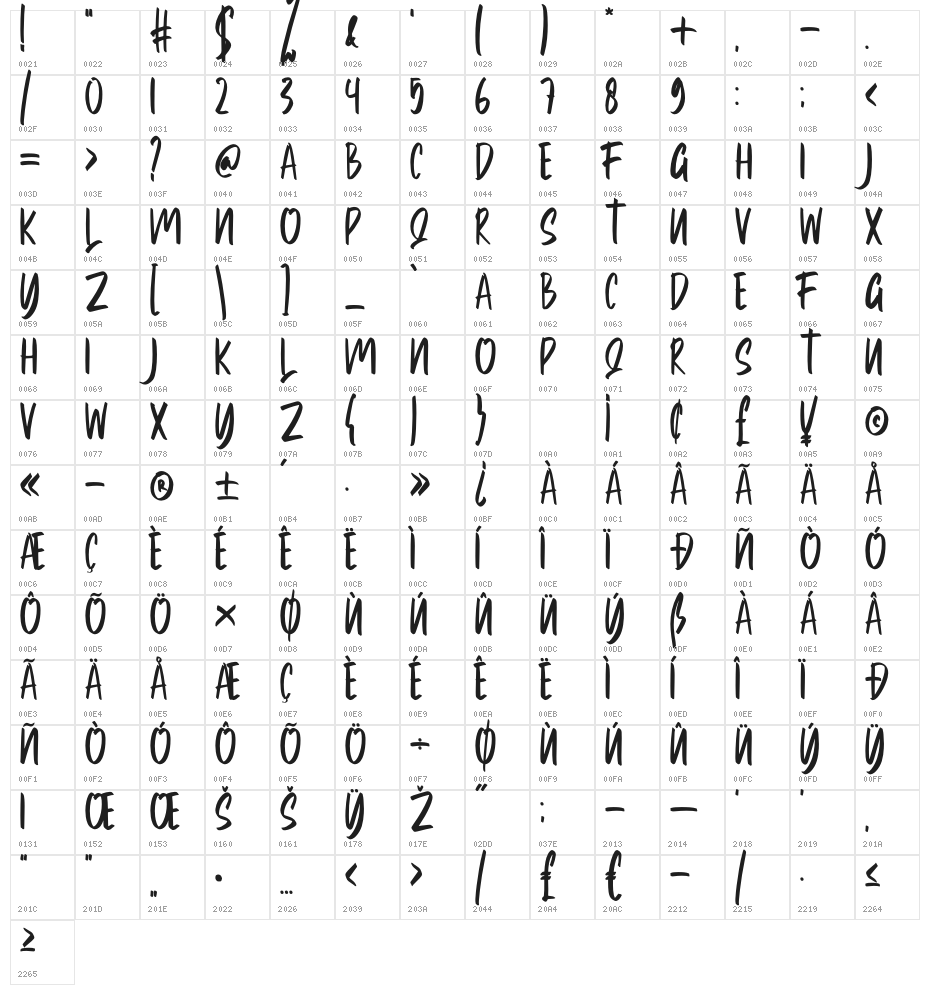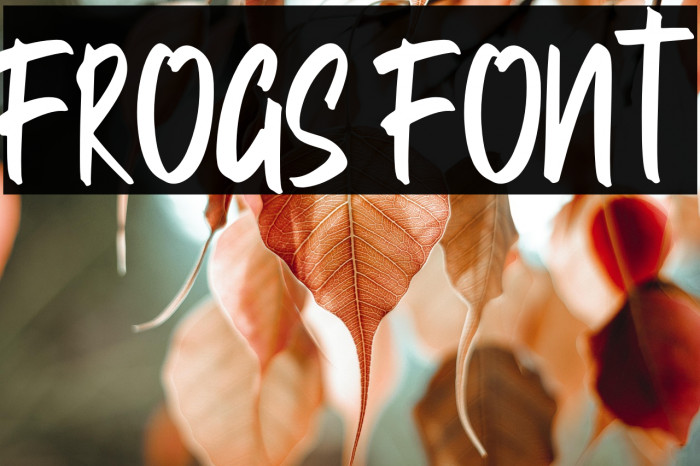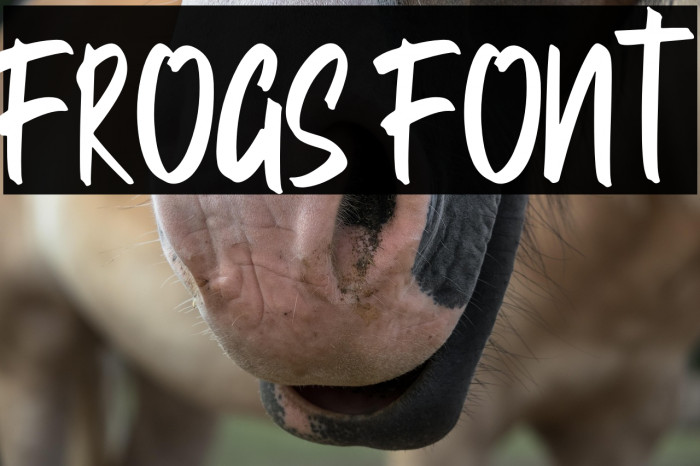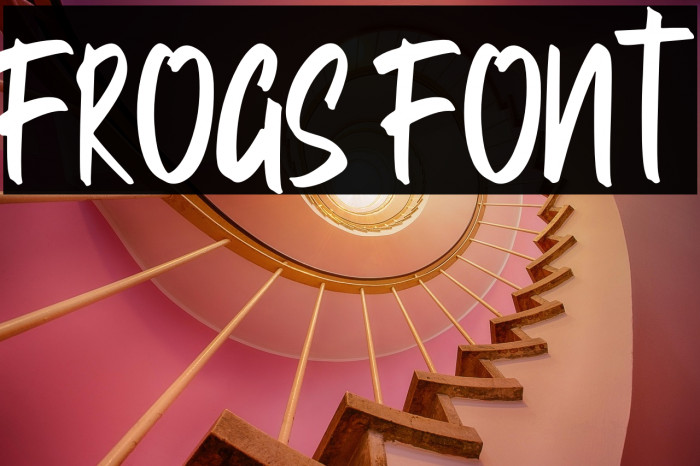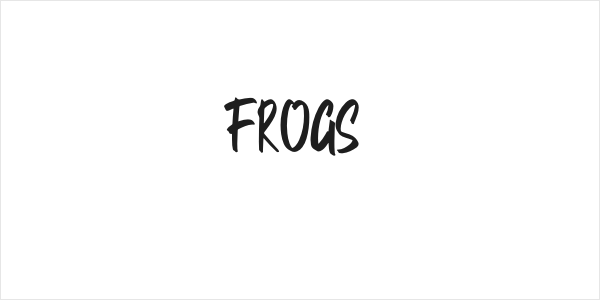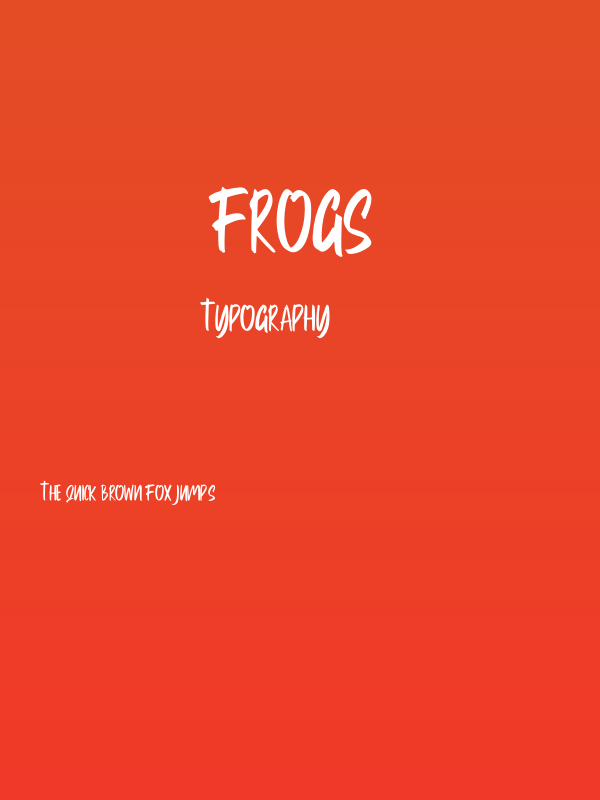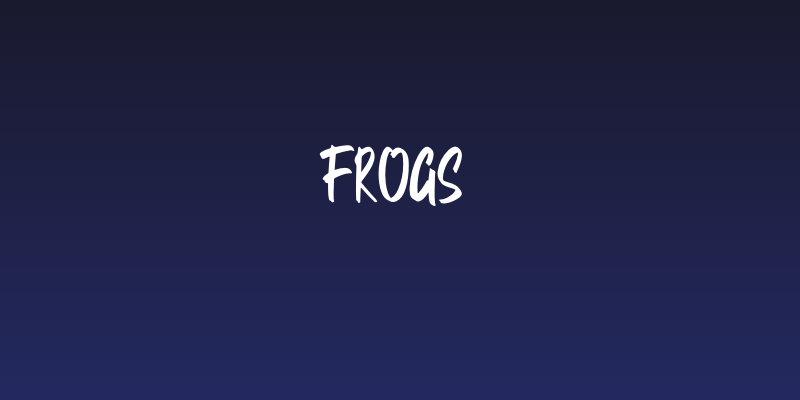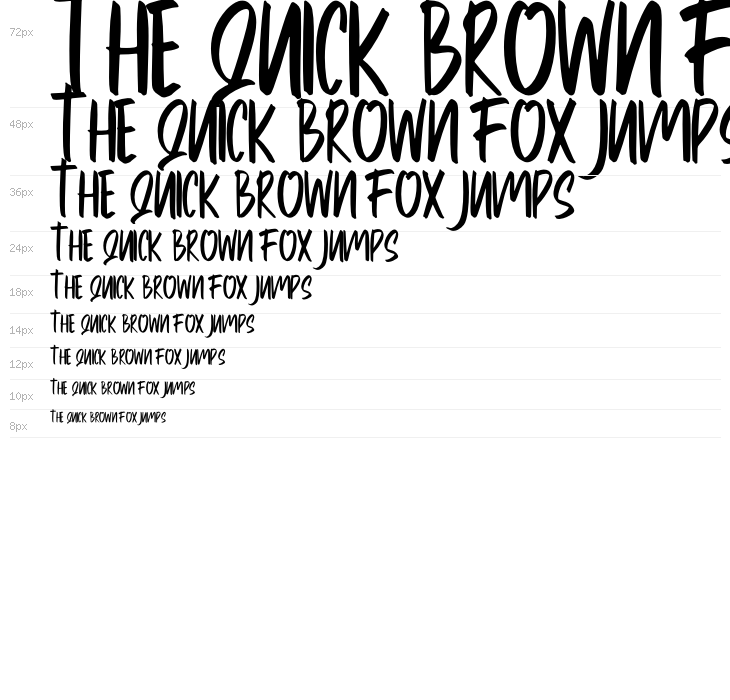
Frogs Font
Frogs Description
A bold, handwritten font with a playful and energetic style, featuring tall, narrow letters with a slight slant.
| Width | Condensed |
| Overall Style | Playful |
| Proposed Projects | Posters, invitations, social media graphics. |